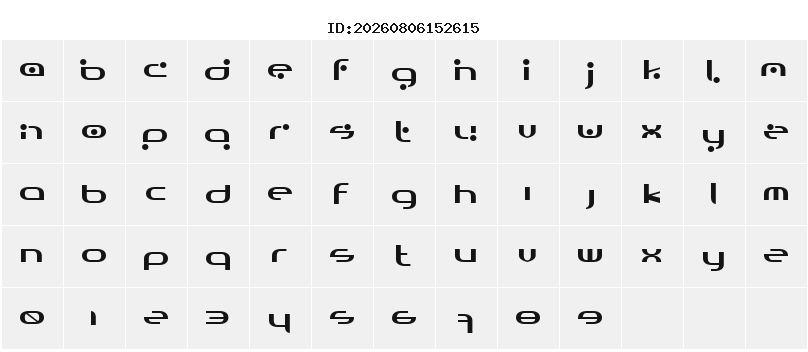
Omicron Preview
• Font Name: Omicron
• Full Font Name: Omicron
About Omicron.ttf
Omicron.ttf is a modern, elegant sans-serif font designed for ultimate readability and visual harmony. Perfect for branding, headlines, web design, and print materials.